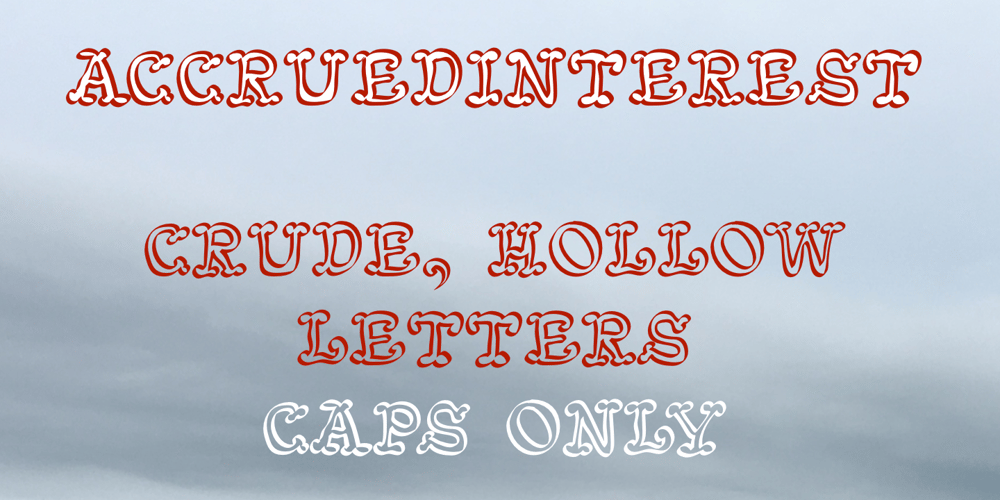
AccruedInterest Font Family was designed by Robert Schenk and published by Ingrimayne Type. AccruedInterest contains 2 styles and family package options. AccruedInterest is an all caps font with hollow letters, the outlines of which were roughly drawn with a calligraphic pen. The serifs are large and round. In a revision in 2019, the insides of the letters were separated out to allow easy bi-colored lettering when using layers. This inside style can also be used alone if one needs very sloppy and loosely-spaced text.